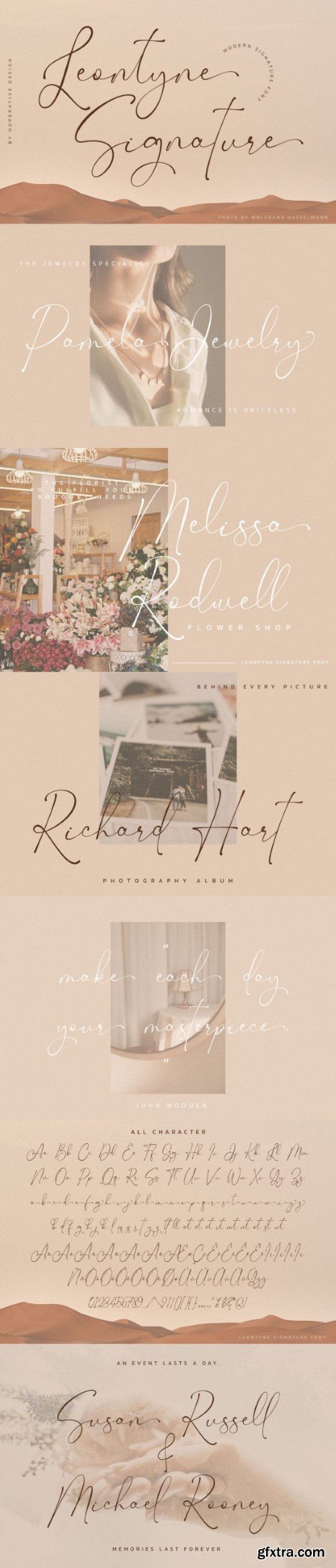
伦敦妮签名字体
Leontyne Signature is a beautiful and elegant calligraphy font with a lovely concept. It has a classy, unique, and modern look that can be used for logos, branding, invitations, stationery, wedding designs, greetings card, social media posts, and much more!